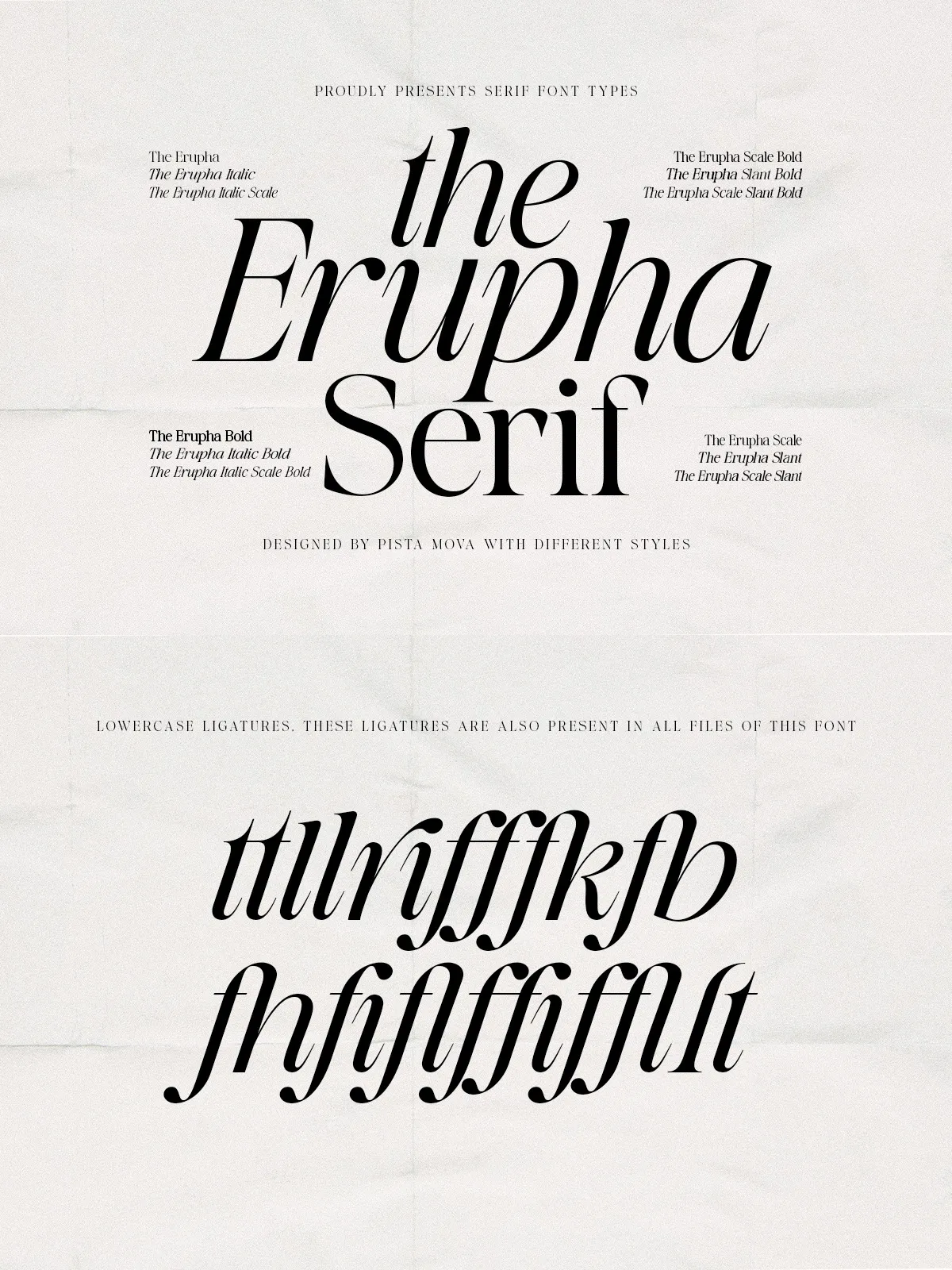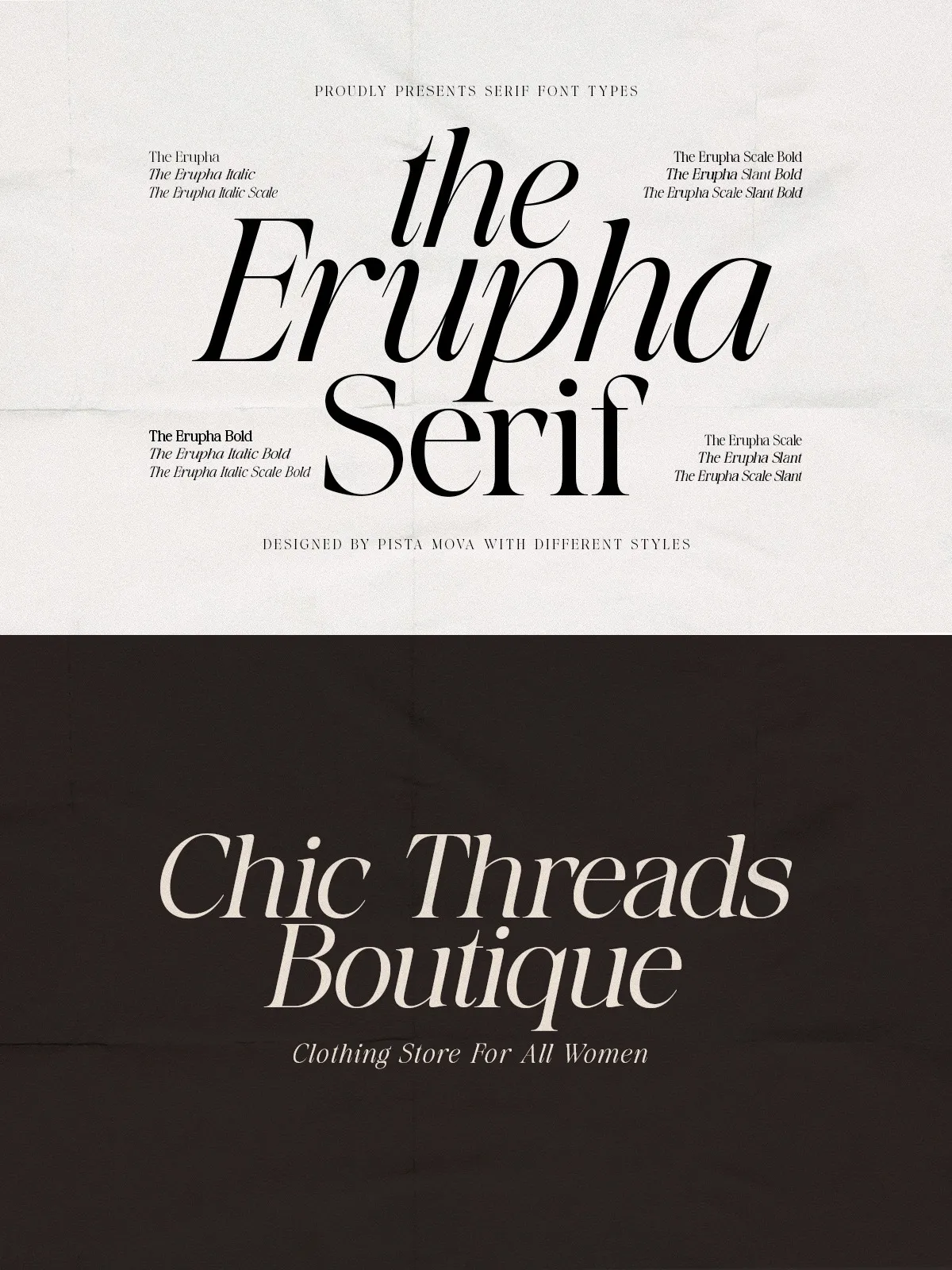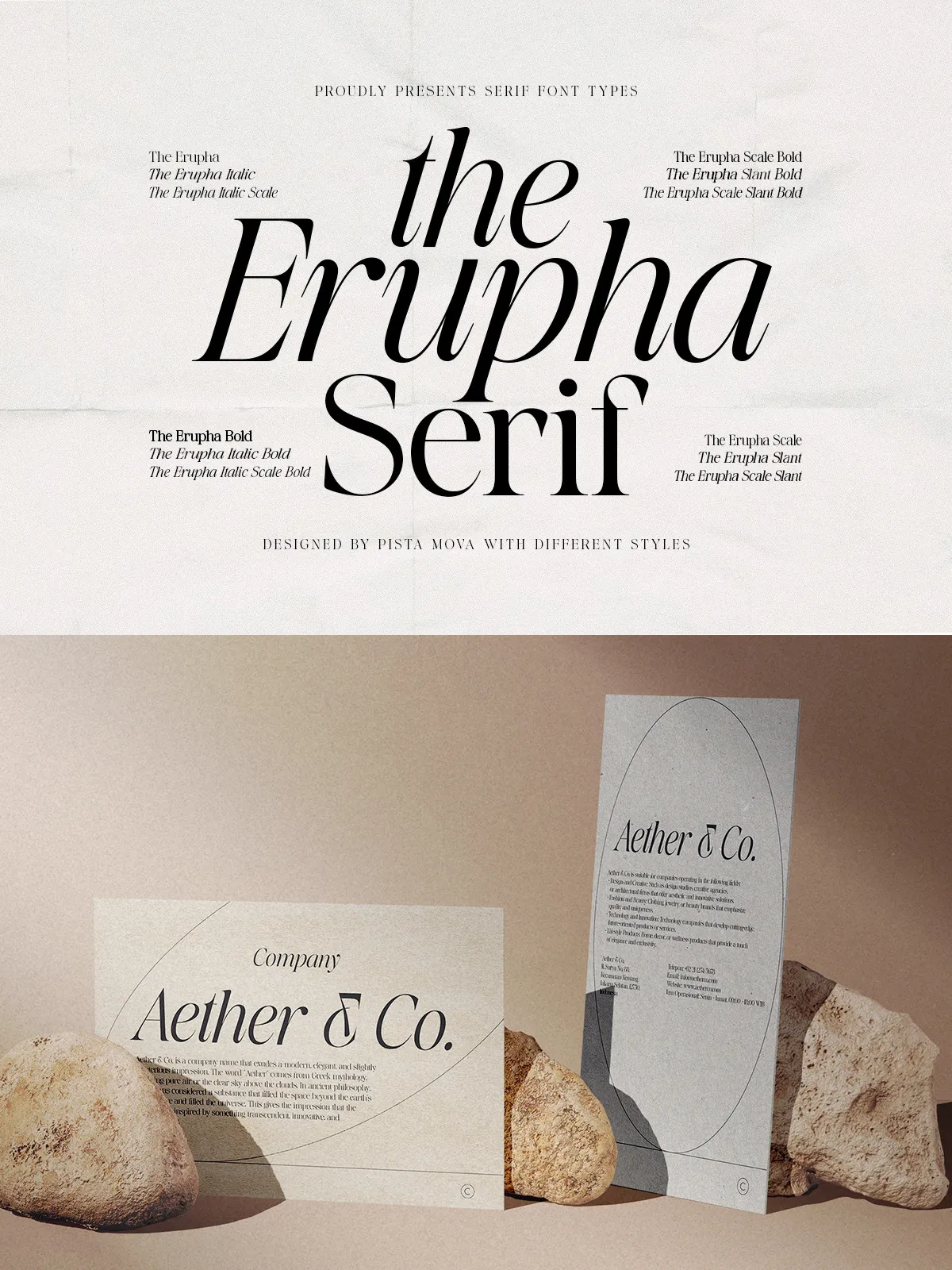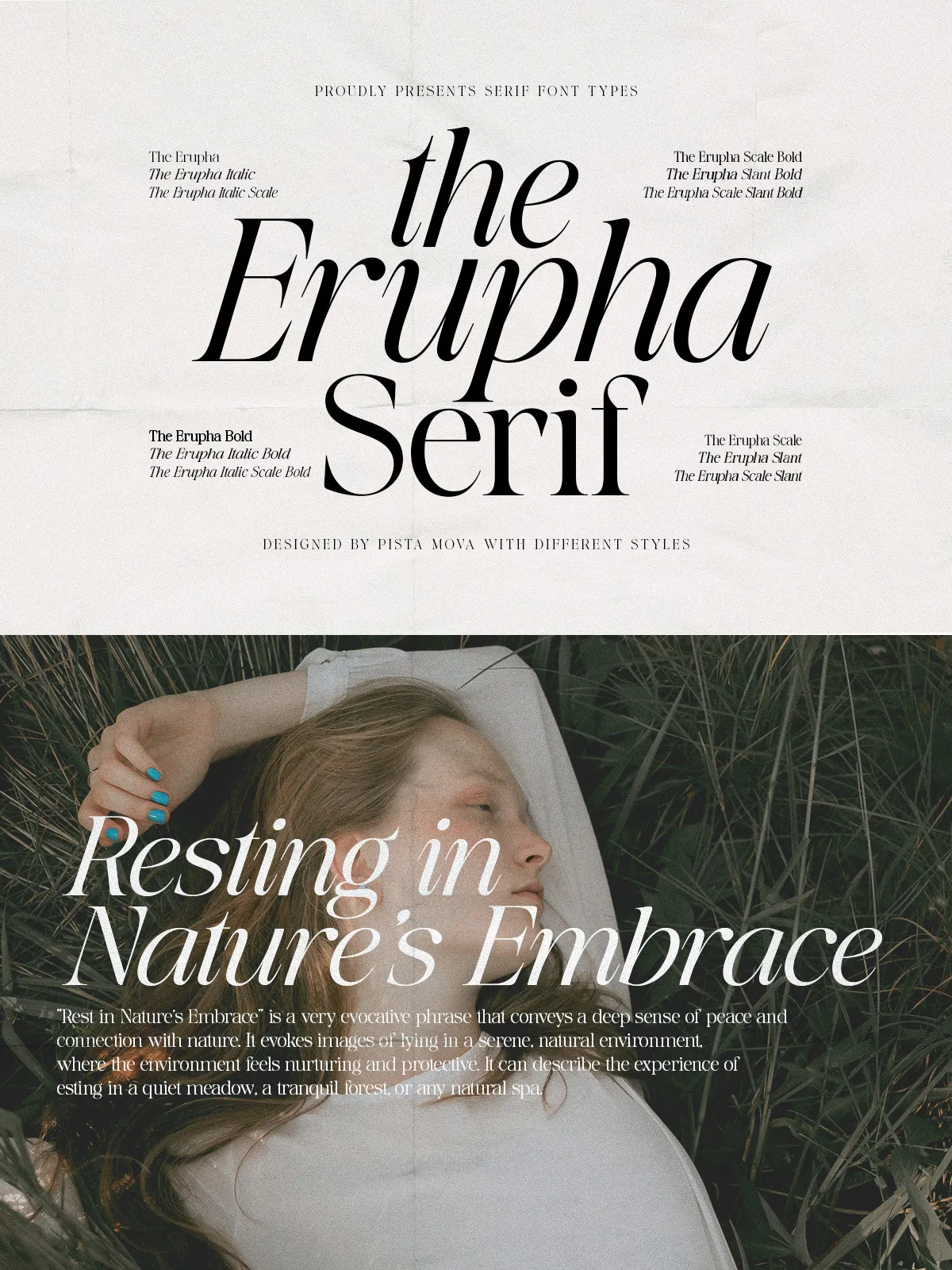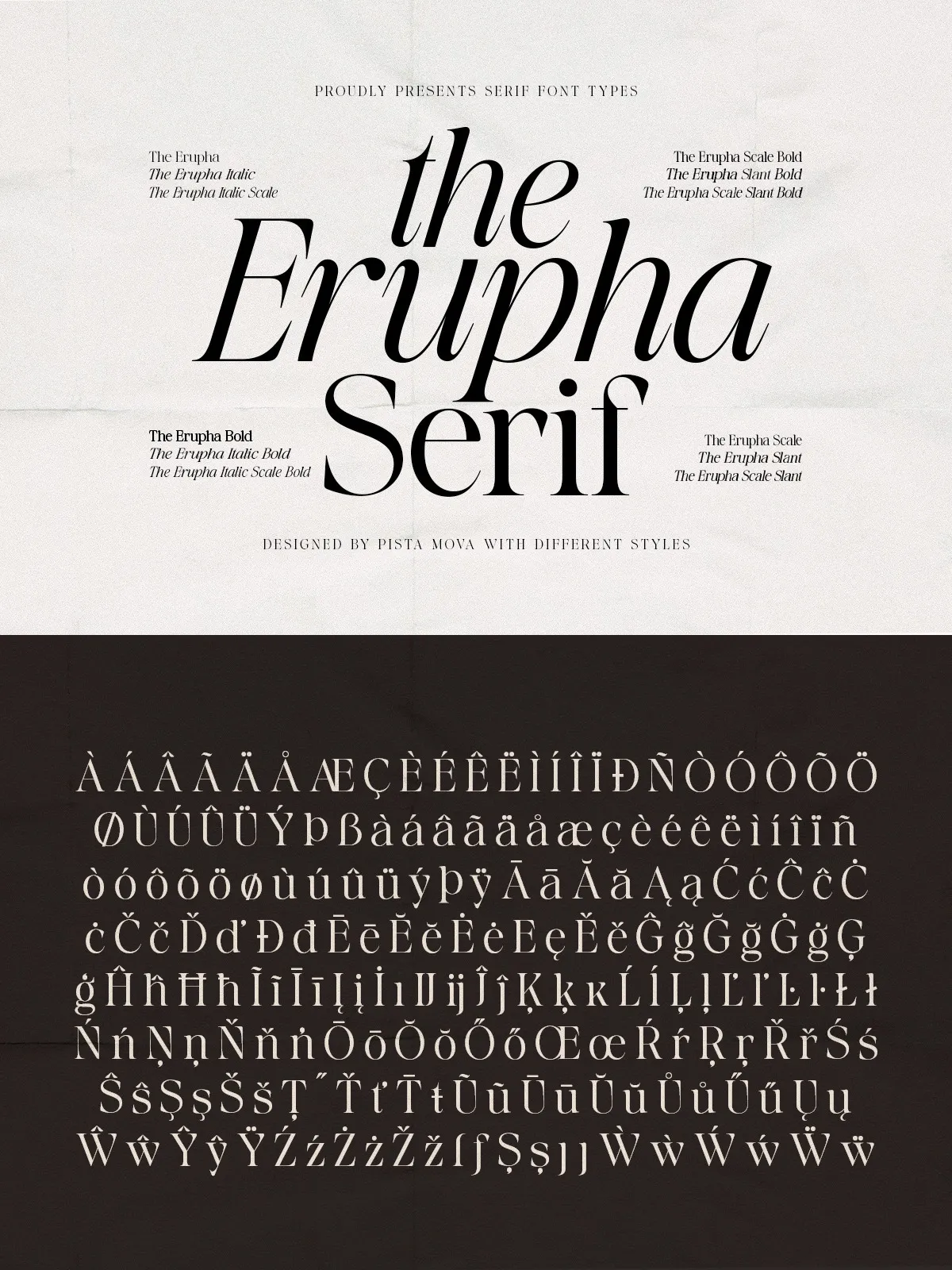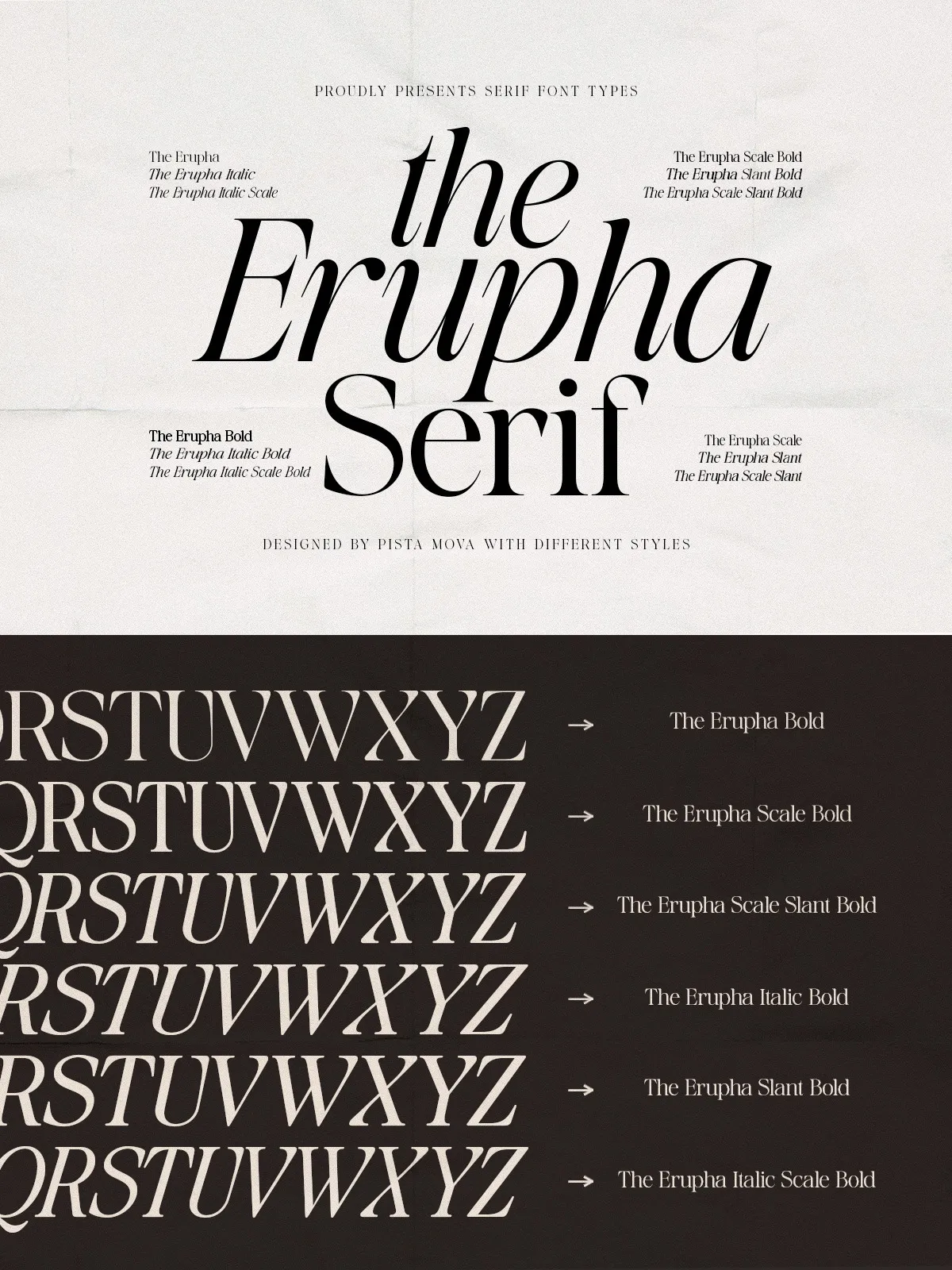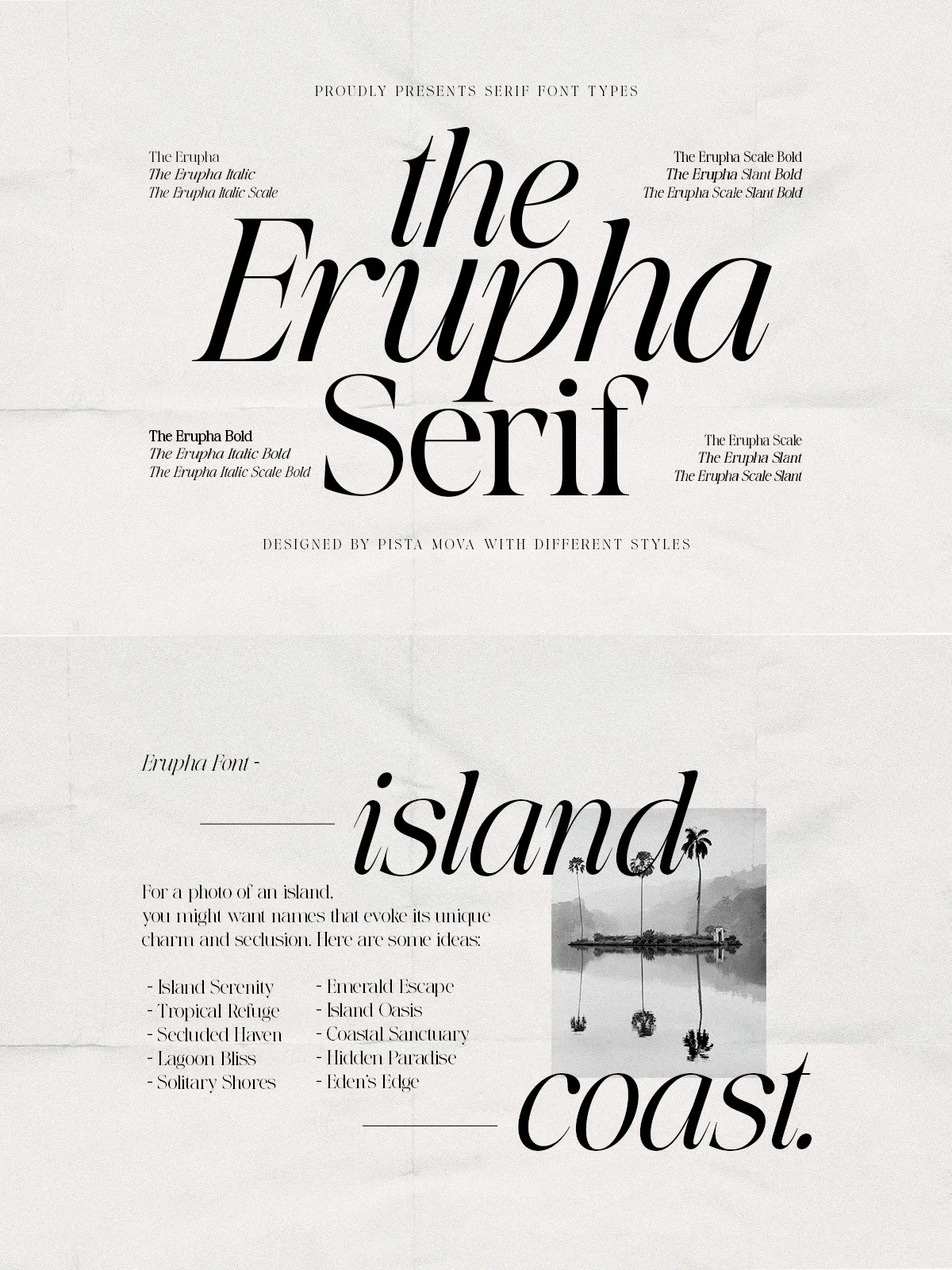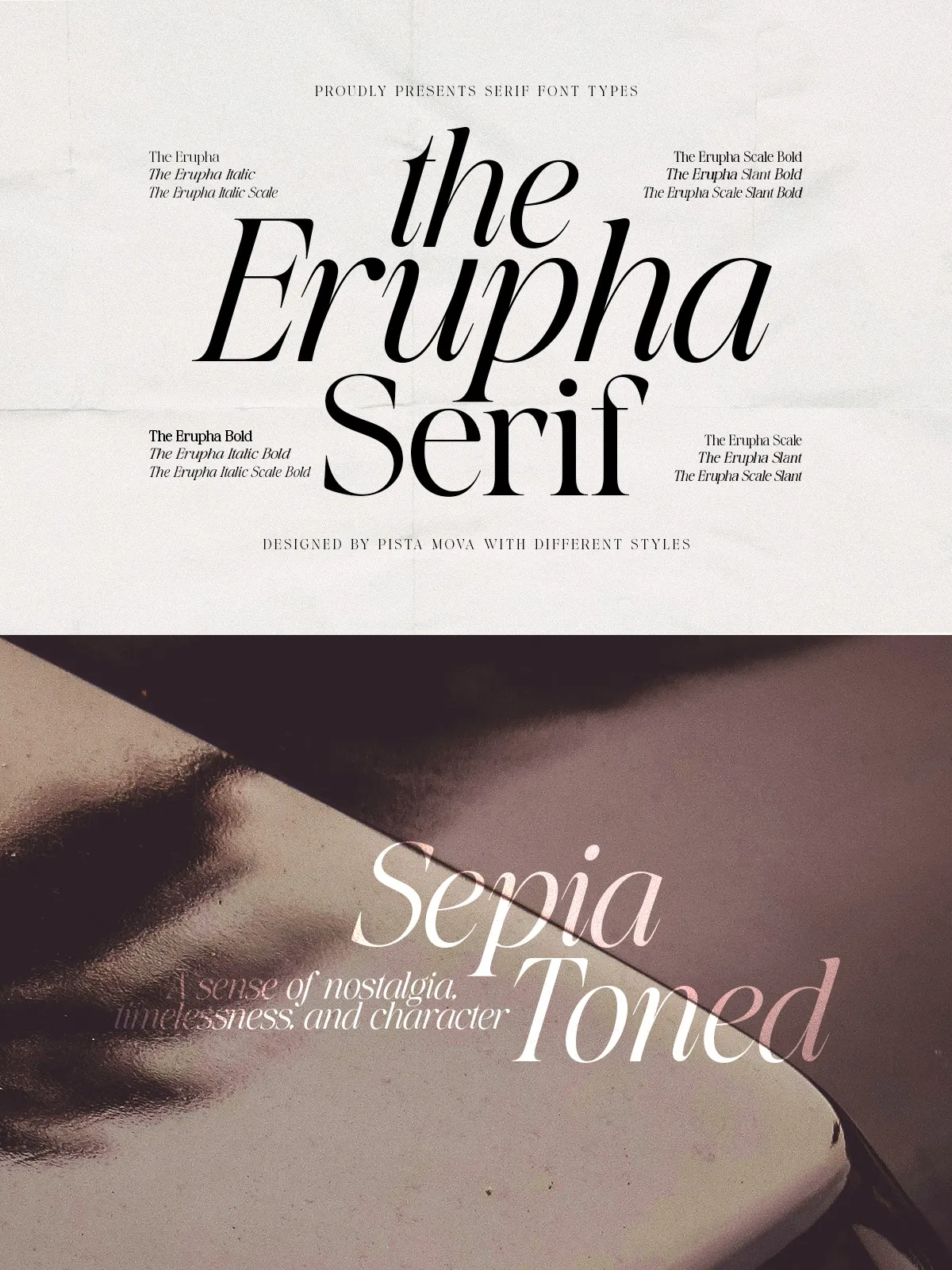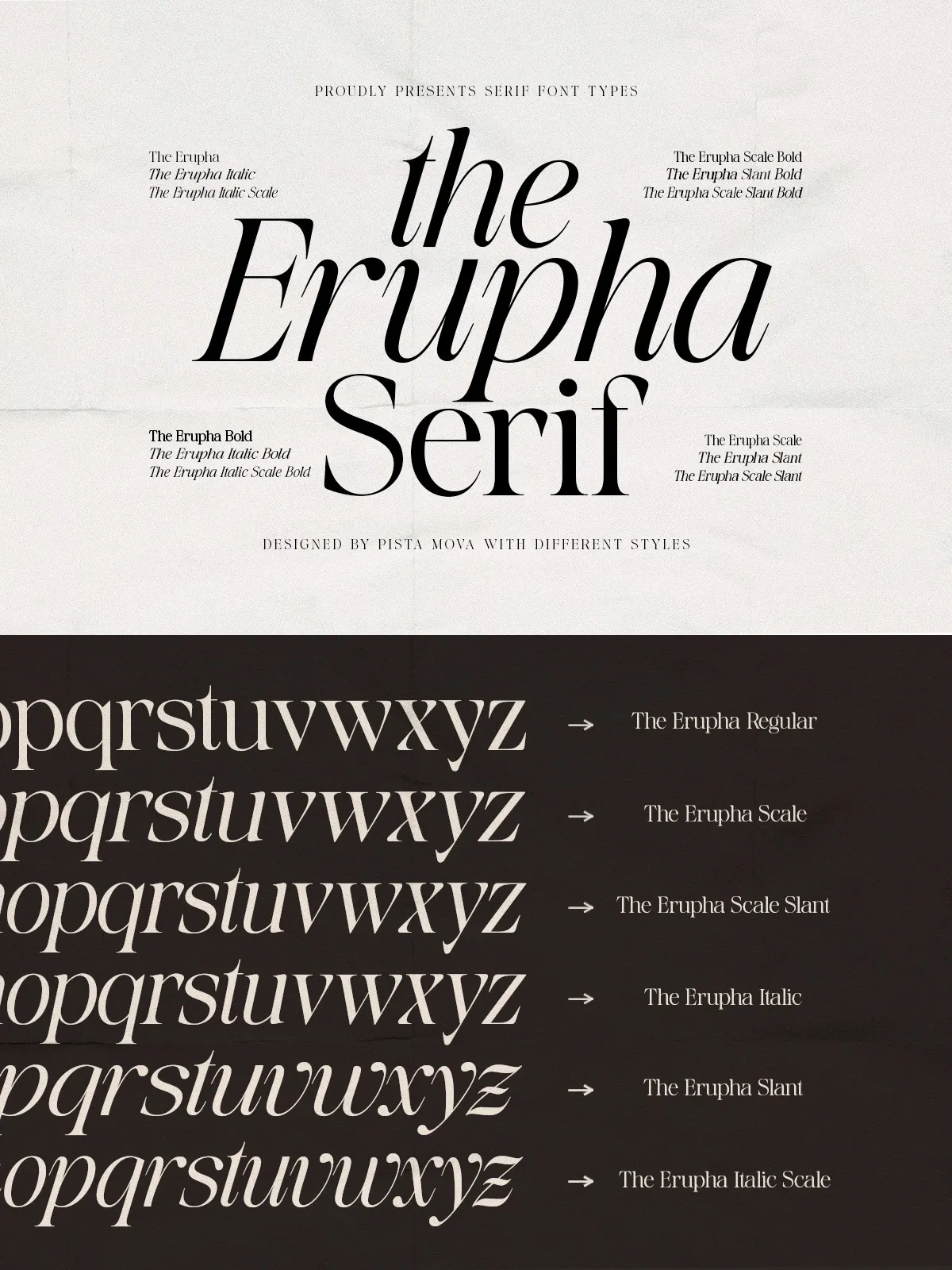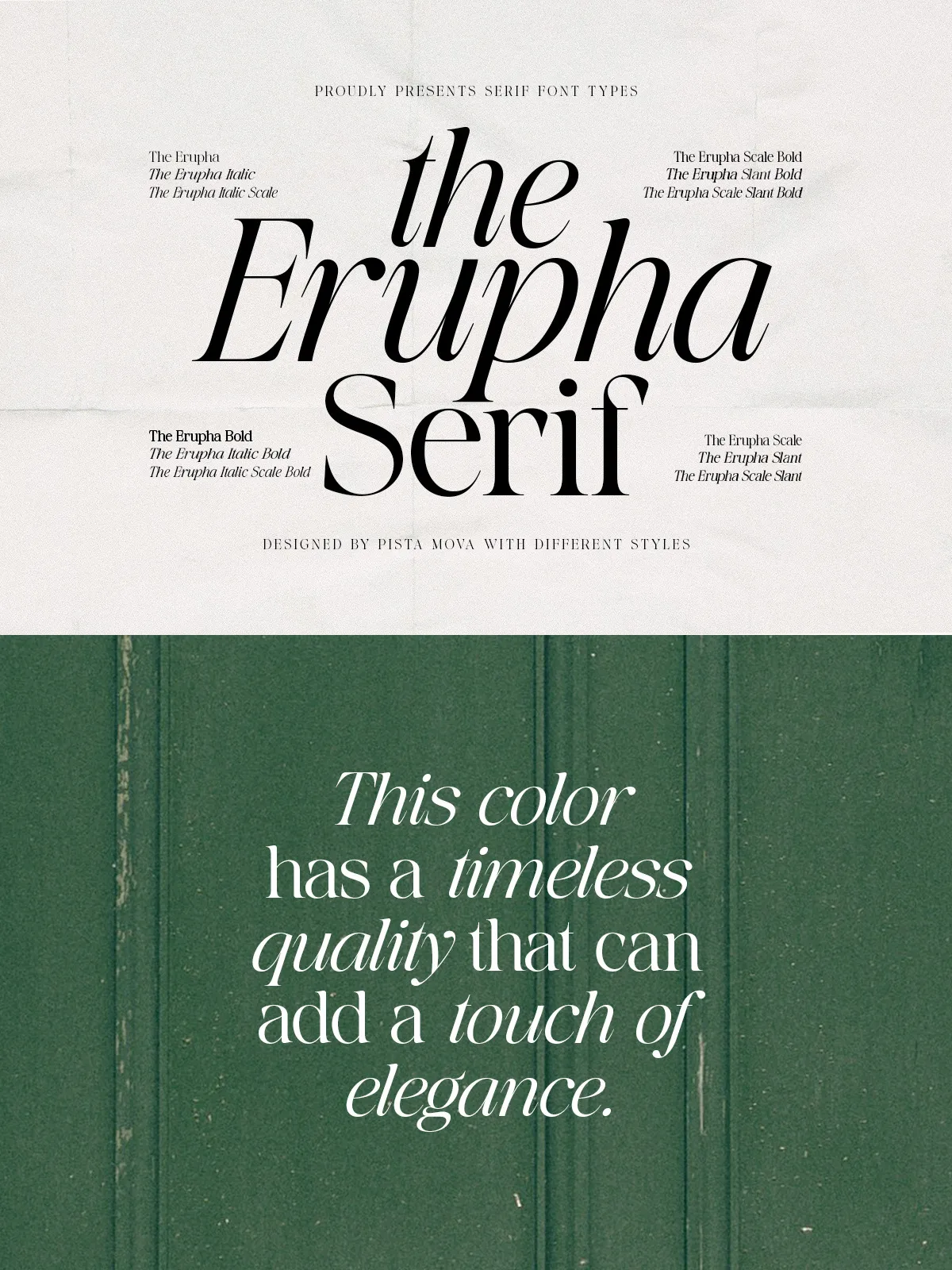
Step into a world where tradition and innovation collide. The Erupha isn’t just a font — it’s a design revolution disguised as a typeface. Engineered for today’s creative landscape, it captures the soul of classic serif typography while embracing the fluid demands of modern visual storytelling. Whether you’re crafting a luxury editorial spread, building a bold brand identity, or designing a sleek digital experience, The Erupha delivers distinction with every stroke.
Design Excellence, Built from the Ground Up
Precision, elegance, and emotional resonance in every character
Every glyph in The Erupha has been meticulously sculpted to achieve perfect harmony between strength and grace. With high-contrast stroke weights, flowing serifs, and perfectly balanced proportions, the typeface commands attention while maintaining effortless readability. The delicate tapering of stems and the slight flares on terminals give it a dynamic presence — like a whisper that echoes through the page. This isn’t mere typography; it’s an emotional experience.
Multifaceted Use Cases for Visionary Designers
Perfect for editorial, branding, digital environments, and more
The Erupha shines across every medium and application:
- Editorial Design: Elevate magazine covers, article headers, and long-form content with a voice that’s both authoritative and inviting.
- Brand Identity: Build trust and prestige for luxury brands, cultural institutions, or premium lifestyle products.
- Web & UI Design: Use it for hero sections, navigation elements, and landing page headlines to create a memorable first impression.
- Motion Graphics & Video: Bring motion and rhythm to animated titles and intros with its natural flow and typographic personality.
- Print & Packaging: Make packaging and stationery feel exclusive, refined, and inherently premium.
Its versatility makes it a single-family solution for any design project that values quality and distinction.
Advanced Technical Features
OpenType power meets creative freedom
The Erupha comes packed with professional-grade features for maximum creative control:
- True italics: Not slanted roman — real italics with unique letterforms that add motion and sophistication.
- Stylistic sets: Swap between alternate forms for a personalized look.
- Small caps & old-style numerals: Ideal for editorial excellence and high-end typographic layouts.
- Extended language support: Fully supports Latin with multilingual coverage, including Western, Central, and Eastern European languages.
- Variable font version: Adjust weight and optical size seamlessly for responsive, dynamic design work.